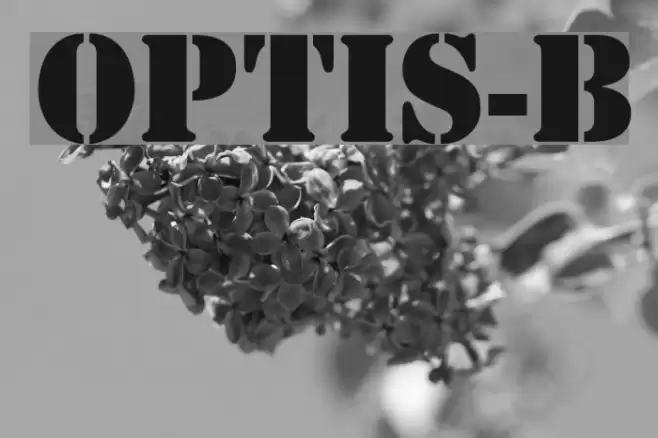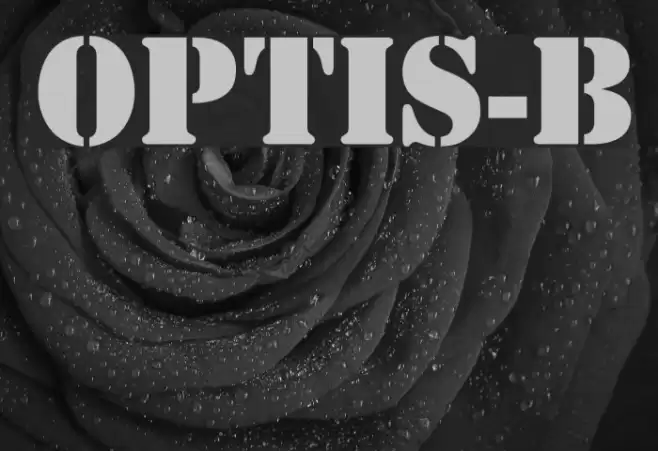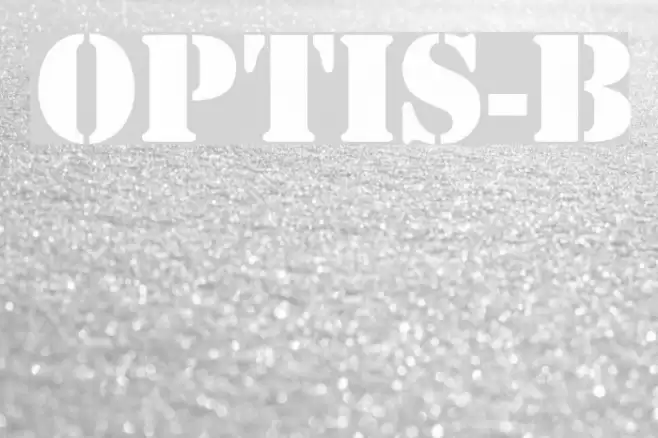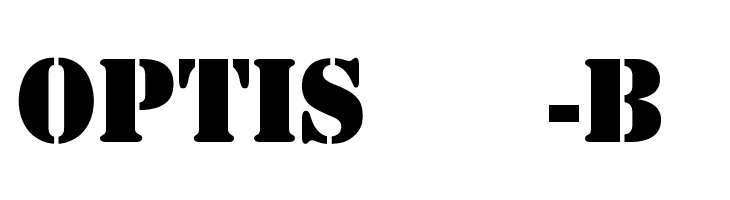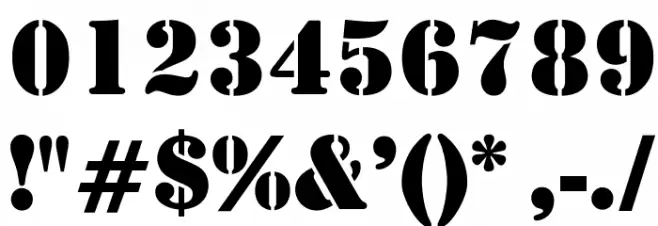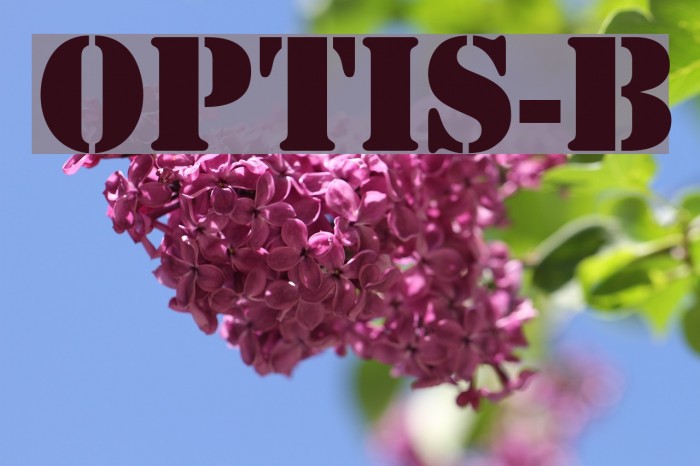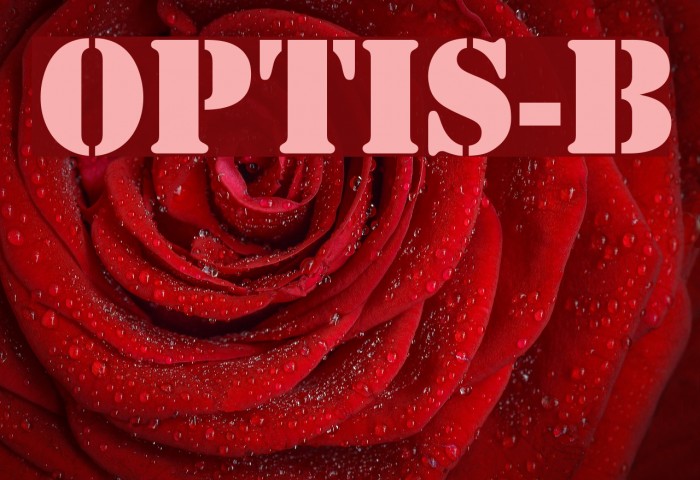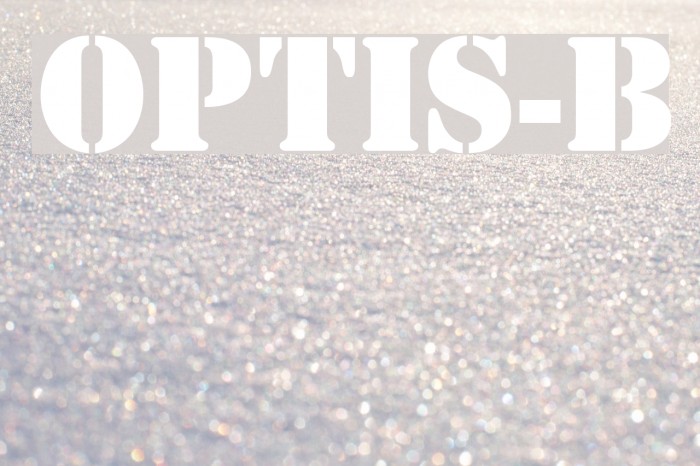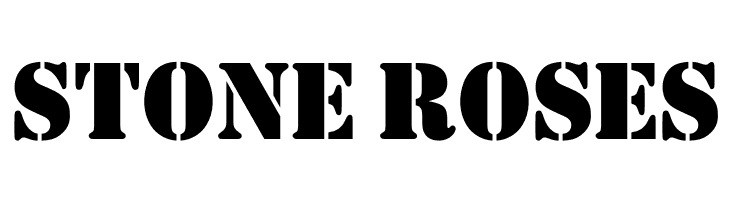
OPTIStencil-Bold Font
OPTIStencil-Bold Description
This bold stencil font features strong, geometric shapes with distinct breaks in the strokes, characteristic of stencil designs. The uppercase letters are particularly striking, with thick lines and sharp angles that create a sense of strength and authority. The numbers and special characters maintain this bold aesthetic, making them highly legible and impactful. The font's design is reminiscent of industrial and military stencils, often used for labeling and signage. Its boldness and unique style make it ideal for projects that require a strong visual presence.
A bold stencil font with geometric shapes and distinct breaks, ideal for impactful designs from Uncategorized fonts.
- Proposed Projects: Perfect for military-themed designs, industrial signage, posters, and branding that requires a strong, bold statement.
- Overall Style: Industrial, Military
- Use Case: Headlines, Logos, Signage